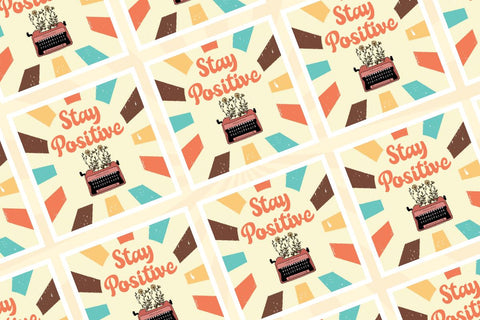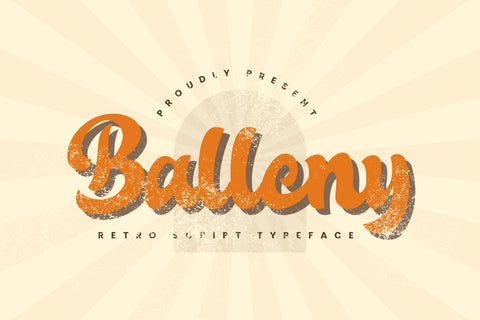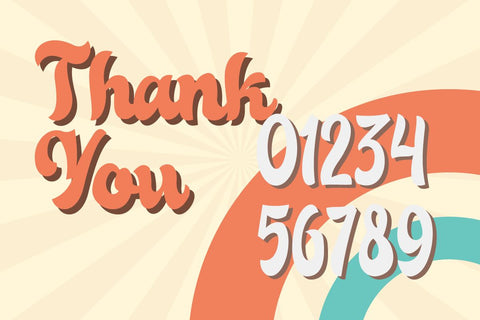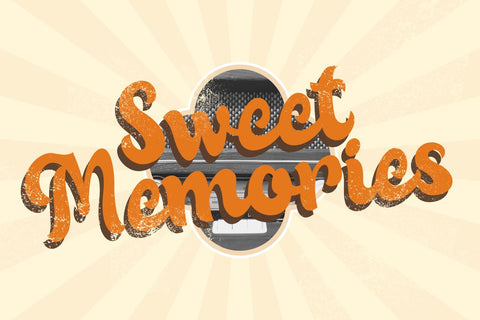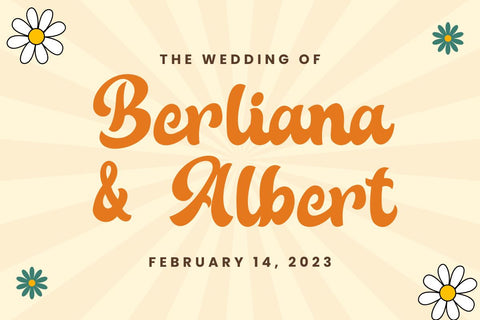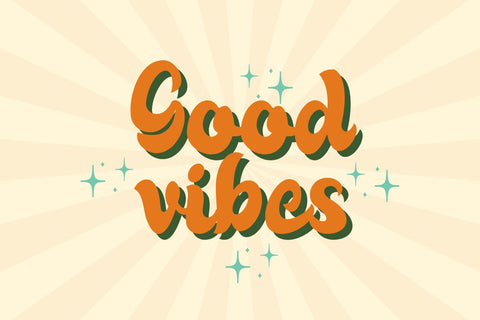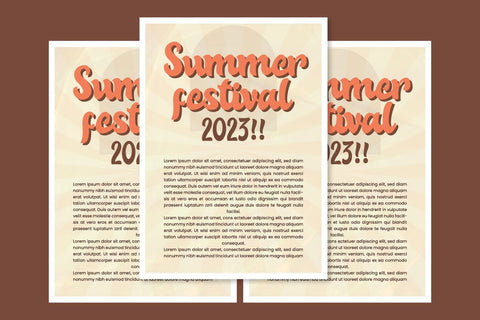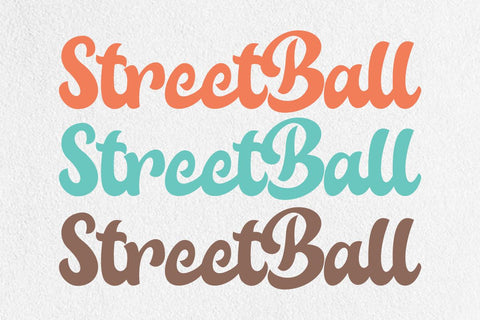
Balleny - Bold Retro Script
**Balleny** is a Script font with a beautiful and unique retro style. It's perfect for labels, quotes, posters, DIY projects, branding, packaging, greeting cards, websites, photographic overlays, signs, window art, scrapbooking, tags and more!